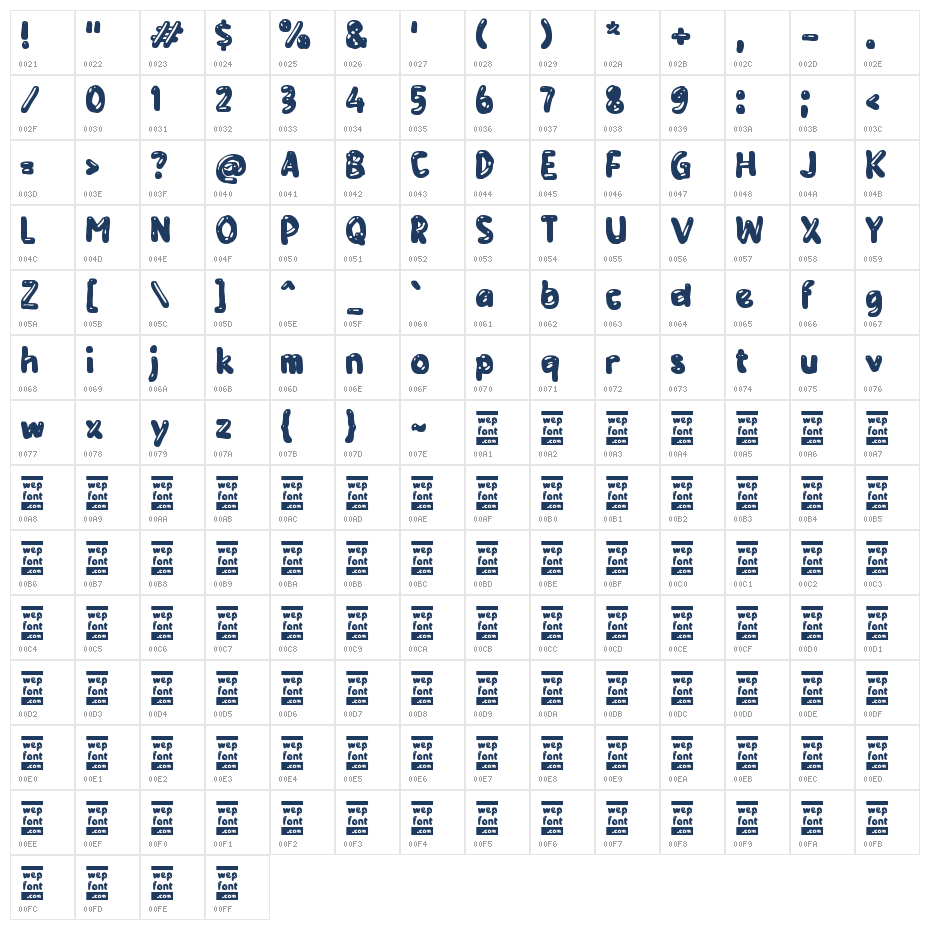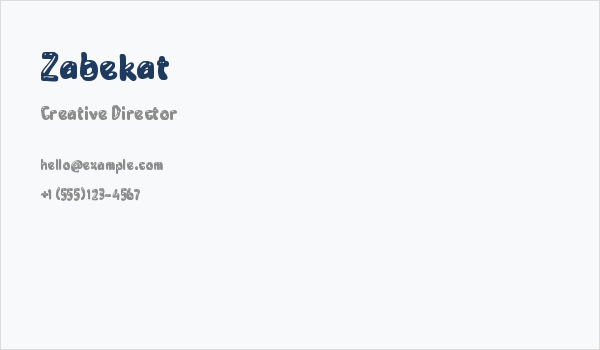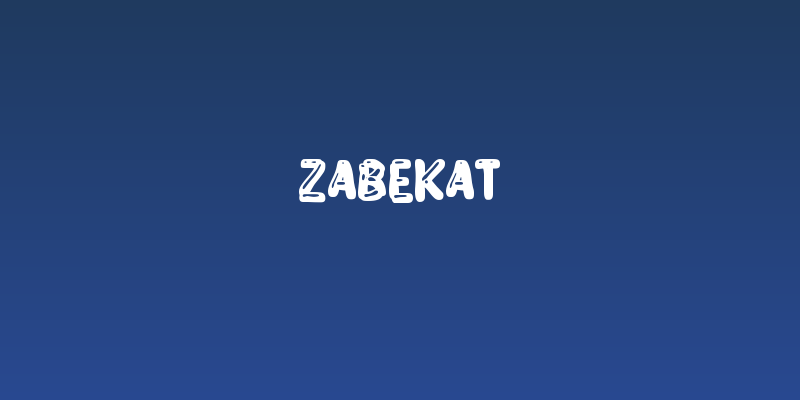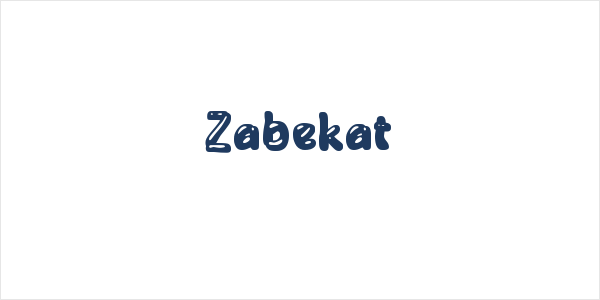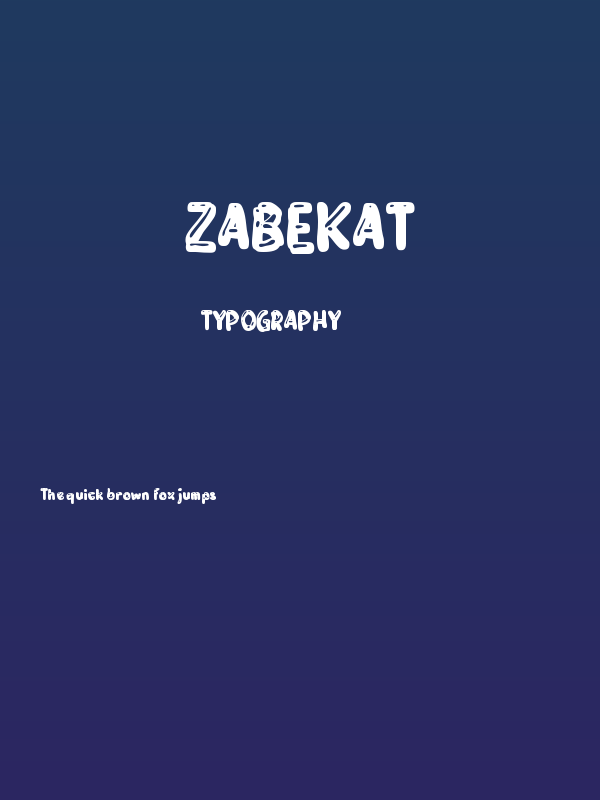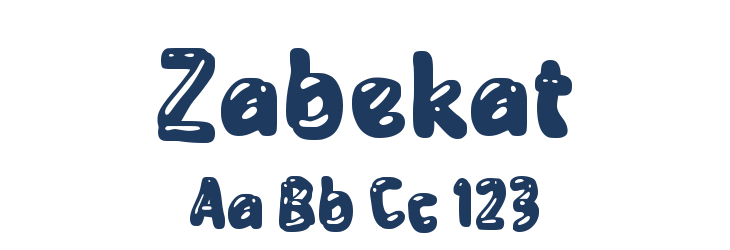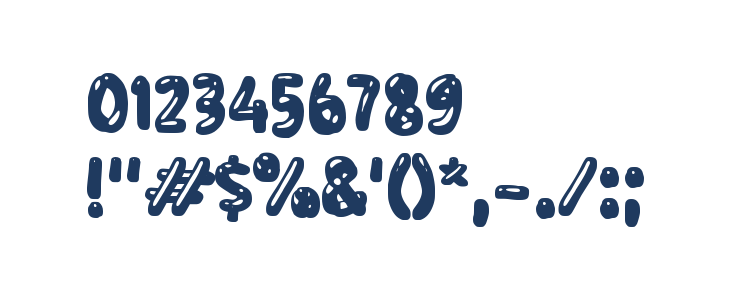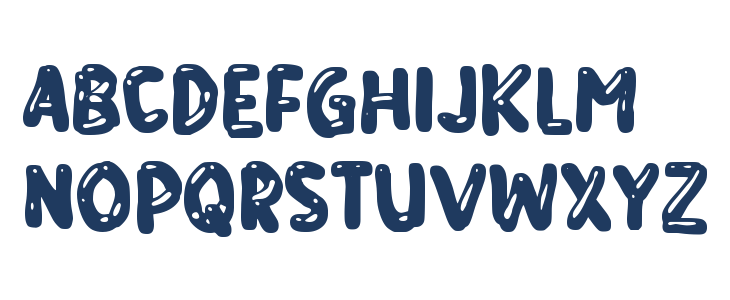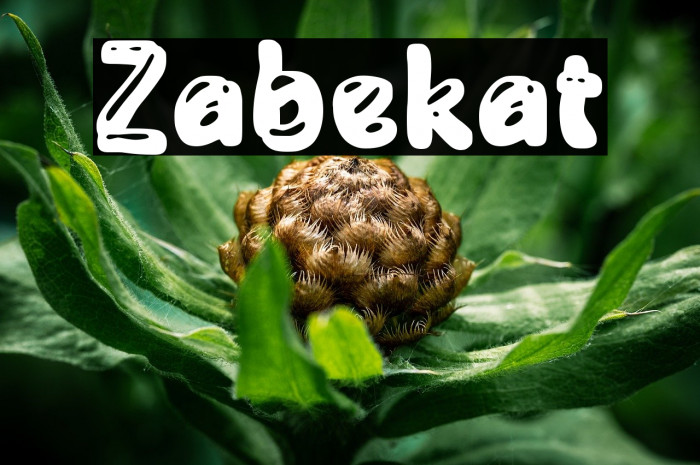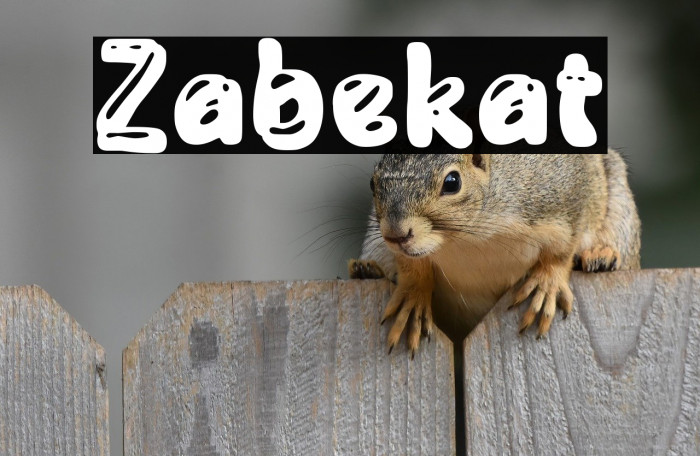
Zabekat Font
Zabekat Description
A playful, rounded, and bold display font with a hand-drawn, bubbly style. It features irregular edges and a casual, fun appearance suitable for informal or children's designs.
ZABEKAT UPPERCASE
ZABEKAT LOWERCASE
ZABEKAT OTHER CHARS
| Overall Style | Playful, Casual, Hand-drawn |
| Use Case | Headlines, Posters, Children's products, Logos |